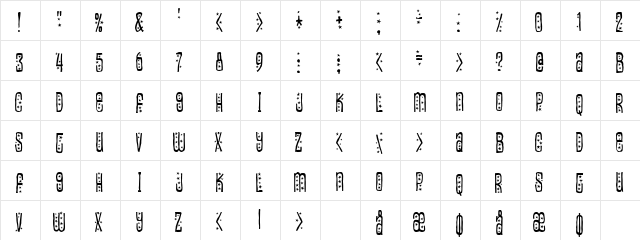
Easily amused Regular
Design Context for Easily amused Typeface
Easily amused is a composed and adaptable typeface that performs quietly and consistently across a wide range of design contexts.